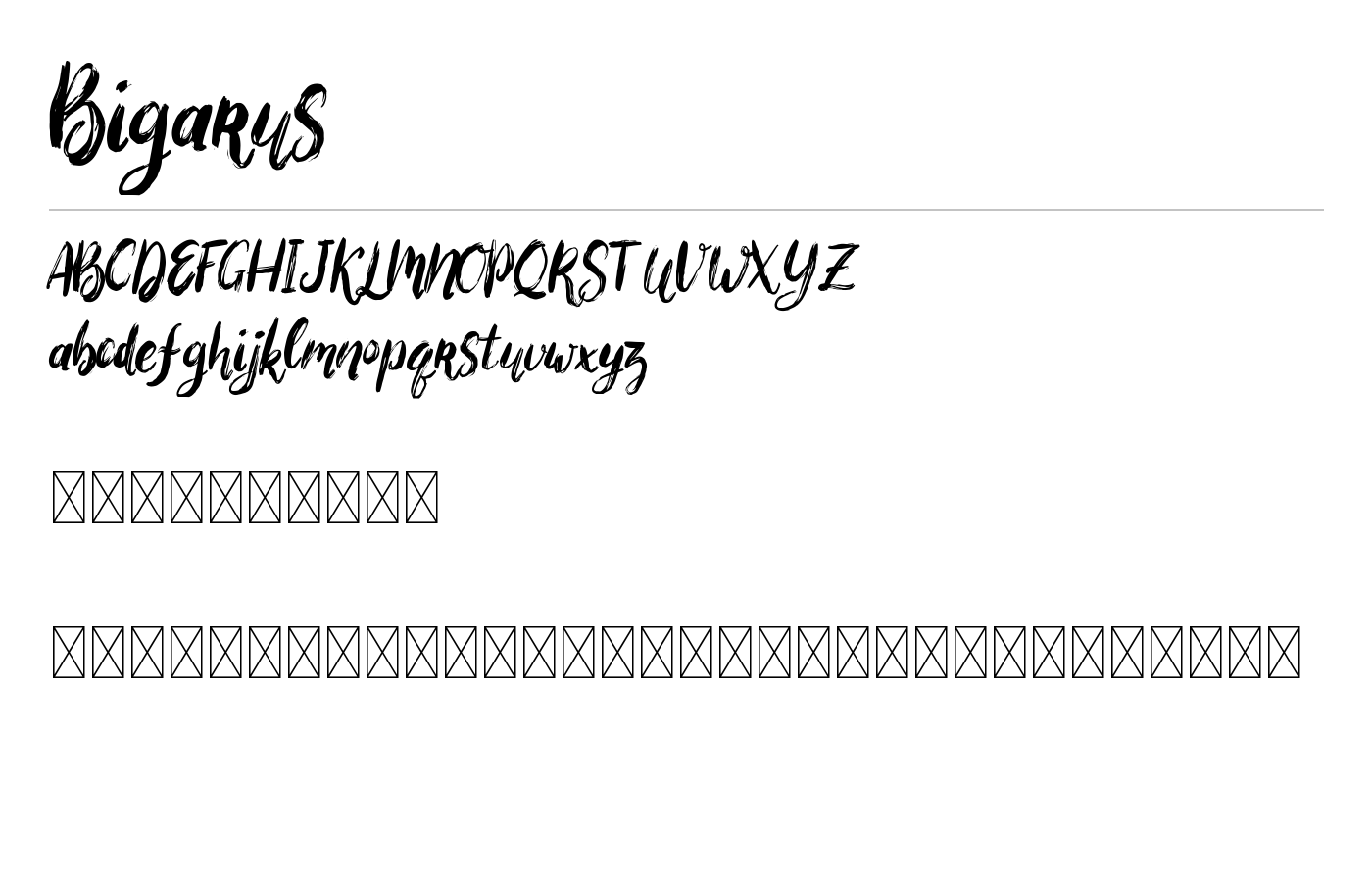
Bigarus is a bold, brush-script font that exudes a lively and artistic vibe with its textured, hand-painted strokes and dynamic, slightly condensed letterforms. Its high contrast and flowing curves give it a casual yet expressive personality, making it ideal for creative branding, eye-catching headlines, and playful design projects that want to convey energy and originality. This font works especially well for logos, posters, and packaging where a handcrafted, personal touch is desired.
Bigarus Font
About Bigarus Font
| Font family | Bigarus Font |
| Designer | Sigit Dwipa |